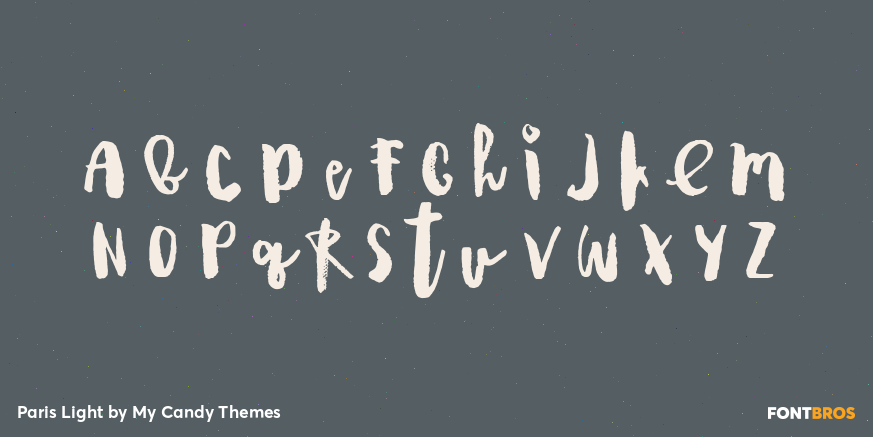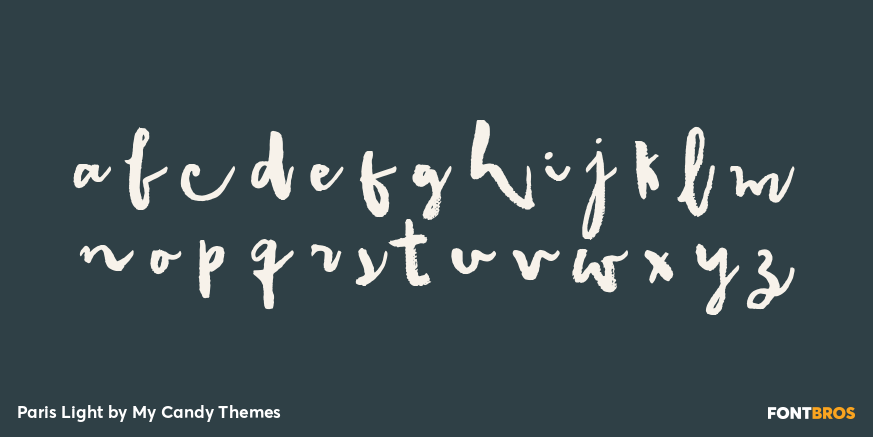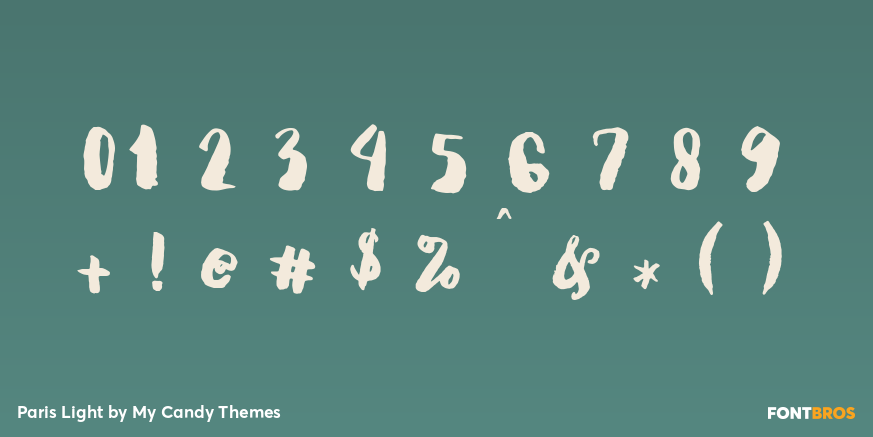
Paris Light
Font Family by My Candy Themes
Paris Light, abstract, modern, stylish brush typeface. Ready to enrich your design with a smooth and natural hand drawn look or a trendy, eye catching, rough effect.